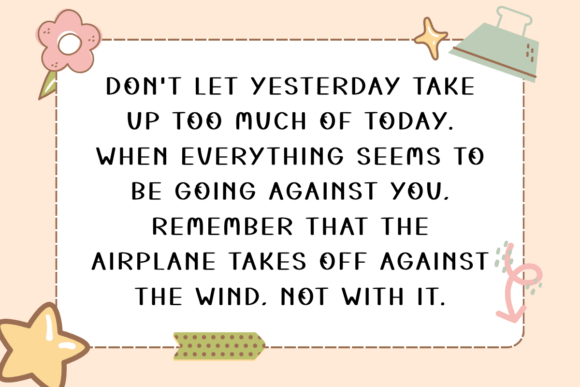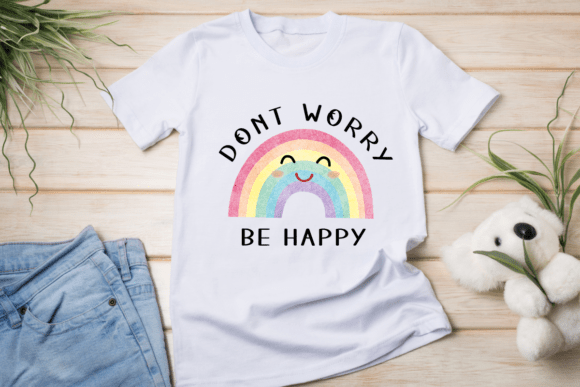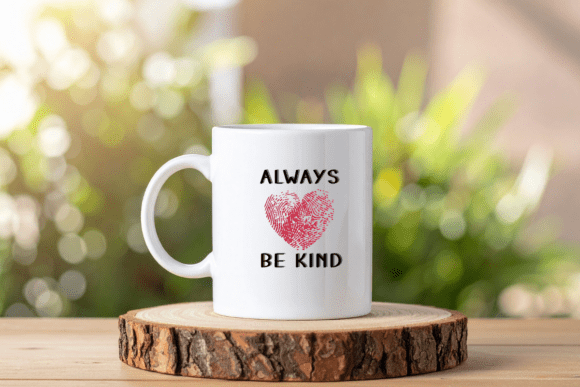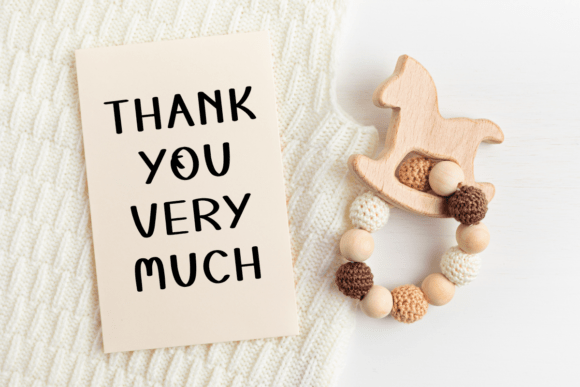
Meet Your New Classroom Companion: Good Teacher Font
Who hasn’t felt a rush of excitement when creating something new and fun for the kids? Perhaps it’s a colorful worksheet, a playful poster, or a vibrant social media graphic. Whatever the project, the right font can make all the difference in capturing that youthful energy and conveying a sense of warmth and approachability. That’s where Good Teacher Font comes in – a delightful sans-serif typeface designed to bring a smile to the faces of both kids and adults alike.
This cheerful font is more than just a pretty face; its clear, bold lines ensure high readability, making it perfect for a variety of applications, from classroom materials to nursery decor and children’s product packaging. With Good Teacher Font, designers can create engaging, fun content that immediately connects with their audience, setting it apart from more serious or formal typefaces.
Good Teacher Font Key Features
- Font Family: Good Teacher is a sans-serif font family designed for educational purposes.
- Unique Characteristics: The font features a clean and modern design with subtle rounded edges, making it easy to read and visually appealing. It also includes a range of ligatures and alternates to enhance typographic expression.
Good Teacher Font Review
I’ve had the chance to work with “Good Teacher Font” and here’s my honest take on it.
- Professional yet approachable look – it’s perfect for educational materials or institutions that want to convey a sense of trust.
- Clear readability, even at smaller font sizes, making it suitable for a variety of applications.
- The font’s versatility allows it to work well in both digital and print formats.
- Limited expressive capabilities – the font’s design is quite straightforward, which might make it less appealing for creative projects.
- Not ideal for titles or headlines, as it doesn’t have the necessary visual punch to grab attention.
- Some users might find the font too generic or unremarkable, which could be a drawback in competitive markets.
“Good Teacher Font” is a reliable choice for projects that require a clean, professional look. While it might not stand out in crowded design spaces, it’s a solid option for those seeking a trustworthy and readable font. Its limitations are well-known, so it’s essential to consider these factors when deciding whether to use it for your project.
Tips for Getting the Most Out of Good Teacher Font
Here are some tips for getting the most out of Good Teacher Font:
- Use it for educational materials, such as worksheets, handouts, and presentations.
- Pair it with a clean and simple design to make your content stand out.
Some common use cases for Good Teacher Font include:
- Creating educational materials, such as worksheets and handouts.
- Designing presentations and reports for students and teachers.
- Choose a bright and cheerful background color.
- Select the Good Teacher Font for the quote text.
- Experiment with different font sizes and colors to add emphasis.
- Use colorful stickers or washi tape to add a playful touch.
- Insert a few photos or illustrations to break up the text.
- Emphasize key words with bold or italic text.
- Choose a clean and minimalist layout.
- Use the Good Teacher Font for headings and subheadings.
- Experiment with different font sizes and colors to add visual hierarchy.
- Use a calendar template to create a schedule layout.
- Insert icons or graphics to represent different tasks or activities.
- Emphasize important dates or deadlines with bold or colored text.